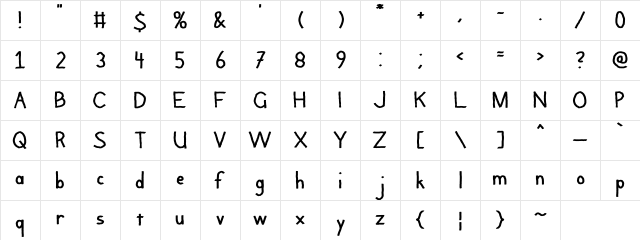
Argaila Regular
Copyright: Created by Joseph Staleknight with FontForge 2.0 (http://fontforge.sf.net). If used, please give credit. A simple, brush lettered font, made with use of Inkscape (http://www.inkscape.org).
Design Context for Argaila
Argaila is a composed and adaptable typeface that performs quietly and consistently across a wide range of design contexts.